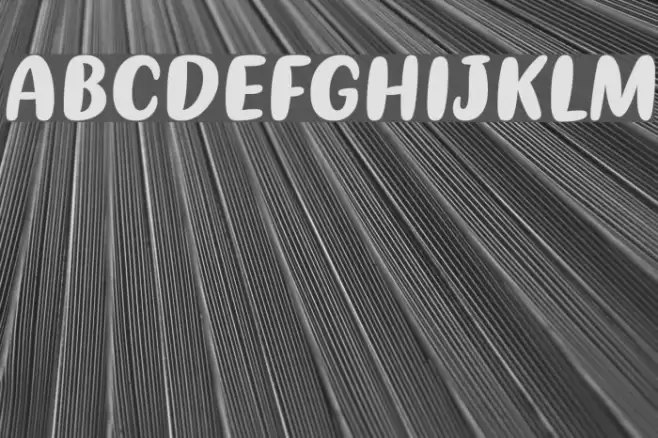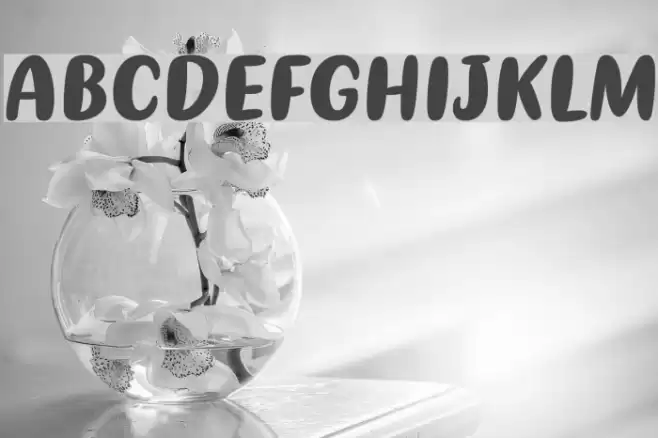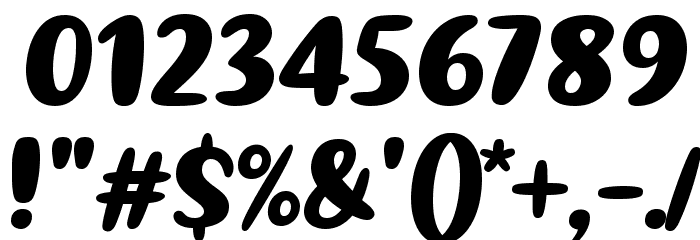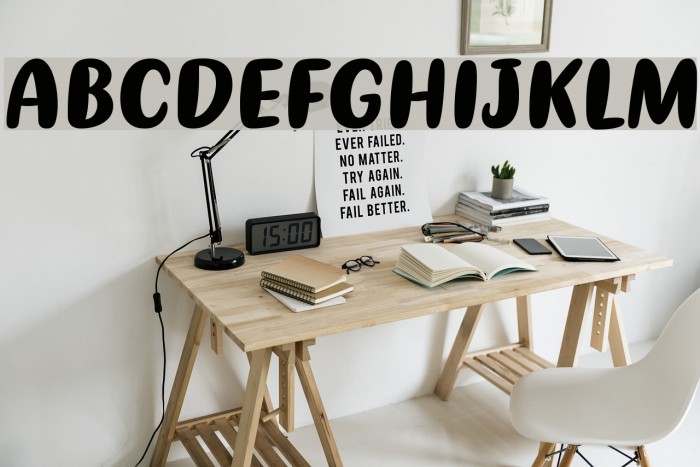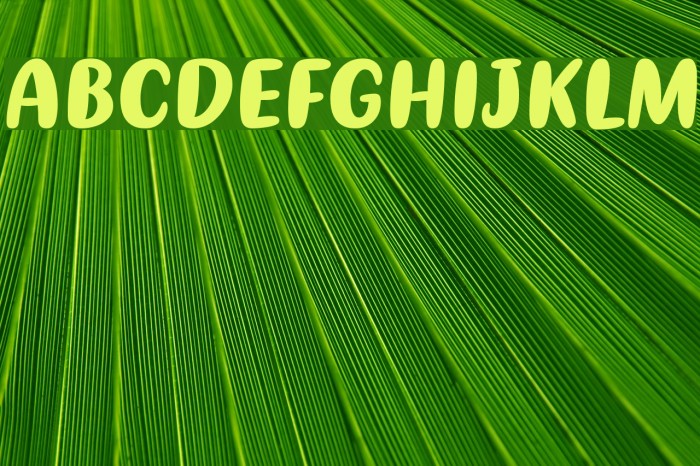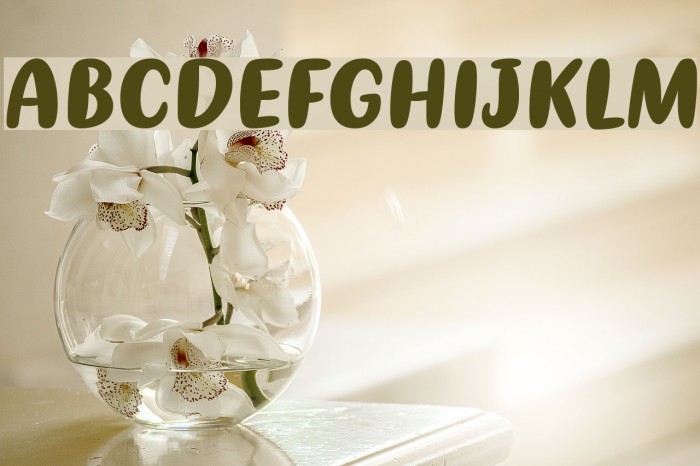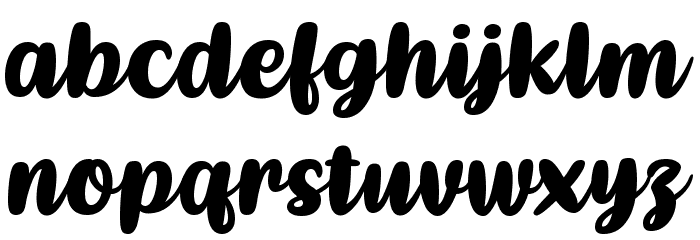
Kathen Font
Kathen Description
This font features a bold, playful script style with rounded edges and a smooth flow, giving it a friendly and approachable appearance. The uppercase letters are slightly larger and more prominent, while the lowercase letters maintain a consistent, flowing script. Numbers and special characters are designed to match the overall style, ensuring uniformity across all elements. The font's thick strokes and rounded forms contribute to its legibility and charm, making it suitable for various creative applications. Its cohesive design ensures that it stands out while remaining easy to read.
A bold, playful script font with rounded edges and smooth flow.
- Proposed Projects: Ideal for branding, packaging, greeting cards, and social media graphics.
- Category: Script
- Overall Style: Playful